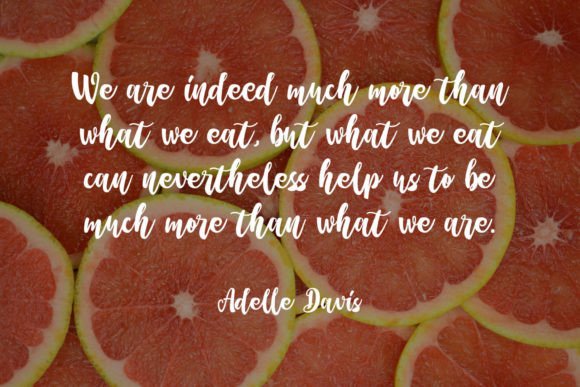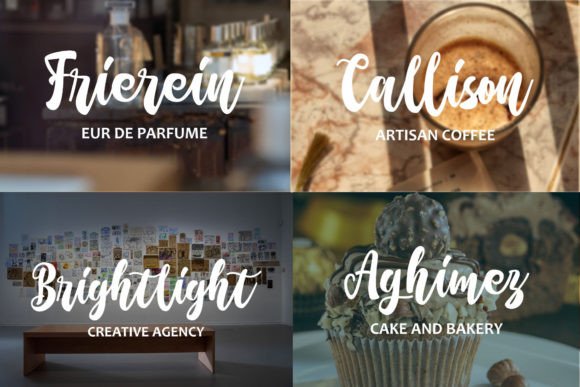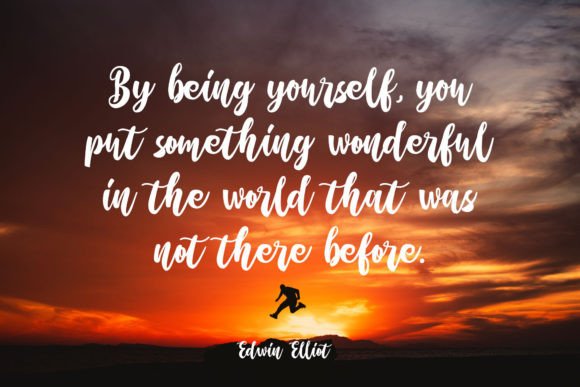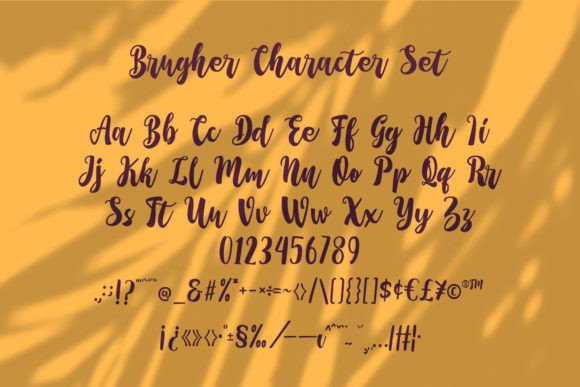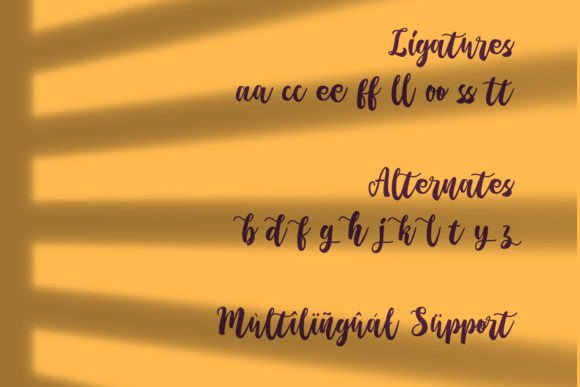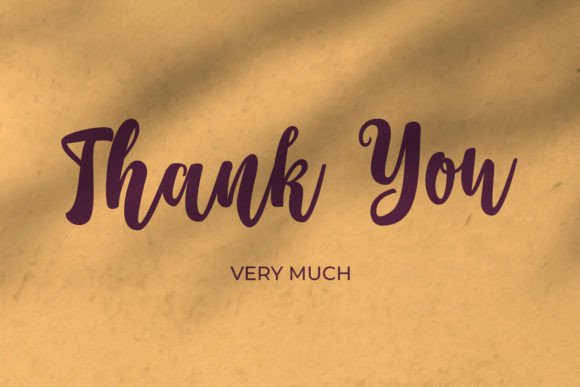
Discover the Art of Brugher Font: Elevate Your Designs with Stunning Handwritten Script
Are you a designer, crafter, or creative enthusiast looking for a unique and stylish handwritten script to take your projects to the next level? Look no further than Brugher Font! This exceptional font script is specifically designed to provide you with one of the best stylistic handwritten scripts available, perfect for a wide range of creative applications.
What Makes Brugher Font Stand Out?
Brugher Font is a carefully crafted handwritten script that boasts a distinctive and elegant style. Its unique charm makes it an ideal choice for various design projects, including logos, headers, titles, prints, and other creative endeavors. With Brugher Font, you can add a touch of sophistication and personality to your work, setting it apart from the ordinary.
Perfect for Logos, Headers, Titles, and More
Brugher Font is incredibly versatile, making it suitable for a wide range of applications. Here are just a few ideas to get you started:
- Logos: Create a lasting impression with a custom logo that showcases your brand’s personality and style.
- Headers: Add a touch of elegance to your website, blog, or social media graphics with eye-catching headers.
- Titles: Make your titles stand out with Brugher Font’s unique and stylish script.
- Prints: Use Brugher Font to add a personal touch to your print materials, such as business cards, brochures, or posters.
Unlock Endless Creative Possibilities
Brugher Font is more than just a font script – it’s a tool that unlocks endless creative possibilities. With its exceptional style and versatility, you can experiment with various design concepts, from:
- Typography: Create stunning typography pieces that showcase your creativity and skill.
- Lettering: Use Brugher Font to craft beautiful lettering pieces that add a personal touch to your designs.
- Illustrations: Combine Brugher Font with illustrations to create engaging and informative graphics.
Get Extraordinary Typography and Lettering Results
Brugher Font is designed to help you achieve extraordinary typography and lettering results. Its unique style and flowing script make it perfect for creating:
- Handwritten notes: Add a personal touch to your designs with beautiful handwritten notes.
- Quotes: Highlight inspiring quotes with a stylish and elegant font script.
- Headlines: Create attention-grabbing headlines that showcase your message in a unique and stylish way.